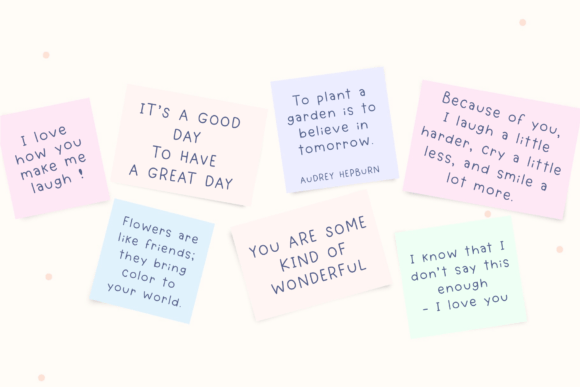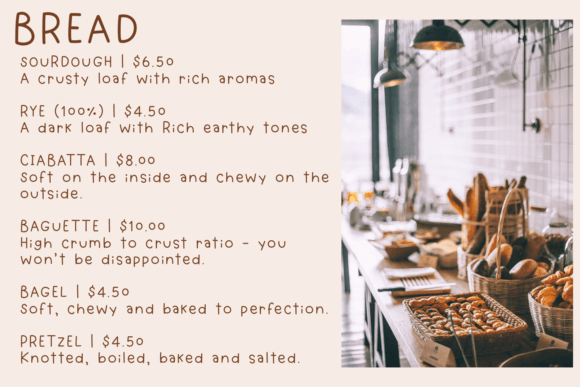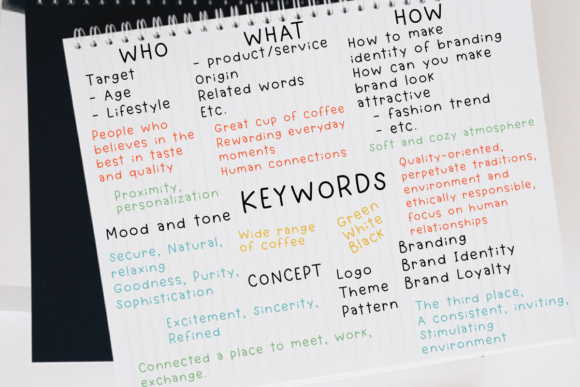
Notes and Books Font
Notes and Books is a quirky and cute handwritten font. You can use this font in various projects such as blog posts, logos, branding, digital planners, invitations, digital bullet journals, greeting cards, planners, photo albums, decorations, and much more.